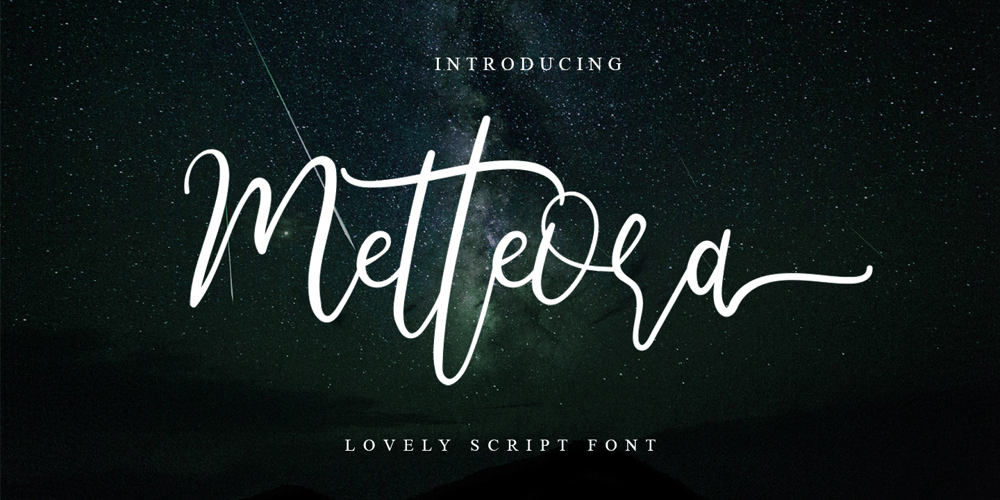
Metteora Font Family was designed by Sarwo Edhi Prayitno and published by Haksen. Metteora contains 1 styles and family package options. “Metteora” is a hand lettered font style that is perfect for greeting cards, branding, stationery design, social media, packaging, magazine layouts, prints, logos and more!This unique font features complete lowercase alphabets and uppercase alphabets along with a few other ligatures and stylistic alternates to create a truly handwritten look and feel.”Metteora” has a variety of unique, coded features to create compelling, handmade outcomes.Multilingual support is included for Western European languages.OTF is included for the full, “Metteora” font.This is the personal license font that can be used for all personal needs.If you want to use this font on items you are going to sell or on anything promoting your business, please purchase the extended license version.Thanks,Haksen